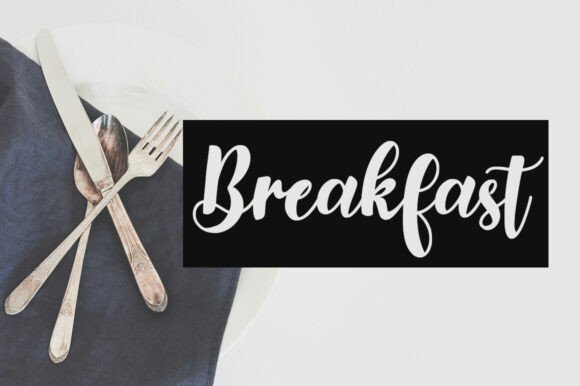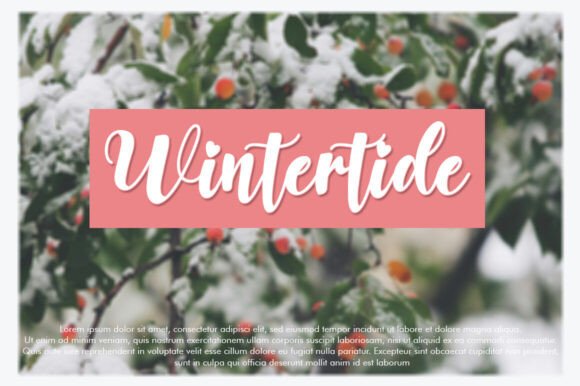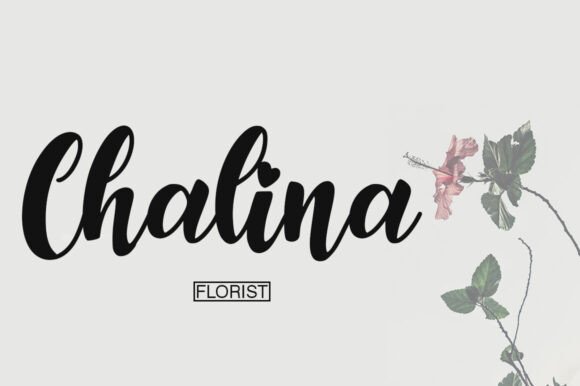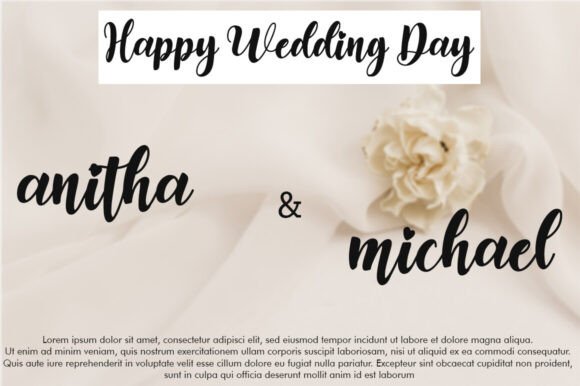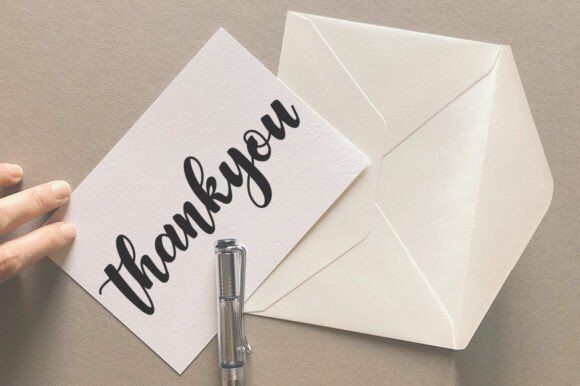
Discover the Magic of the Disney Font
Have you ever sat at your desk, staring at a blank page, waiting for inspiration to strike? For designers, this moment can be a daunting experience, but it’s also an opportunity to create something truly special. It’s the moment when you remember that the right font can make all the difference in bringing your vision to life.
That’s where the Disney Font comes in – a highly sought-after script font that adds a touch of elegance and versatility to any design. This font is designed to seamlessly blend into your unique designs, making it the perfect choice for designers who want to create something truly magical. With its aesthetic appeal and flexible functionality, the Disney Font is a valuable asset for any designer looking to take their projects to the next level.
Key Features of Disney Font
- Font Family: Disney Font is a custom font designed specifically for The Walt Disney Company, and its exact family is not publicly available for download. However, it is often referred to as the “Disney Font” or “Disney Script.”
- Unique Characteristics: The Disney Font is known for its distinctive, elegant, and whimsical design, featuring flowing lines, rounded edges, and a sense of nostalgia. Its unique characteristics make it instantly recognizable and synonymous with The Walt Disney Company.
- Legibility: Despite its decorative design, the Disney Font is highly legible, making it suitable for use in a variety of applications, including signage, logos, and advertising materials.
- Customization: The Disney Font is often customized to fit specific brand identities and design requirements, which can include modifications to the font’s color, size, and style.
Disney Font Review
✨ The Disney Font is a unique and whimsical font that instantly evokes the magic of Disney. It’s perfect for projects that require a touch of nostalgia and fantasy. The font’s playful, cursive script is reminiscent of classic Disney branding, making it a great choice for designers looking to add a dash of Disney charm to their work.
✨ One of the standout features of the Disney Font is its versatility. It can be used for a wide range of projects, from children’s books and educational materials to advertisements and merchandise. The font’s bold, colorful aesthetic makes it perfect for grabbing attention and conveying a sense of fun and excitement.
- ⚠️ Limited customization options: While the Disney Font is available in a range of styles and weights, it can be difficult to customize the font to fit your specific design needs.
- ⚠️ Limited language support: The Disney Font may not be suitable for projects that require a lot of foreign language support, as the font may not include the necessary characters.
- ⚠️ Limited use in formal contexts: While the Disney Font is perfect for playful, informal projects, it may not be suitable for more formal or professional contexts, where a more conservative font is preferred.
The Disney Font is a fun and versatile font that’s perfect for designers looking to add a touch of magic to their work. While it has some limitations, the font’s unique aesthetic and playful charm make it a great choice for a wide range of projects. With a little creativity and experimentation, the Disney Font can be a valuable addition to any designer’s toolkit.
To get the most out of the Disney Font, try the following:
- Use it in conjunction with other whimsical fonts to create a cohesive look.
- Use it in headings and titles to draw attention to important information.